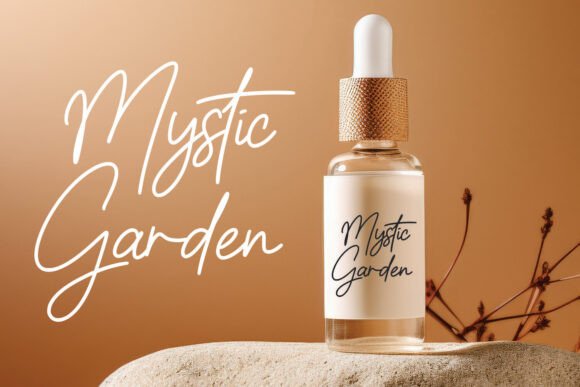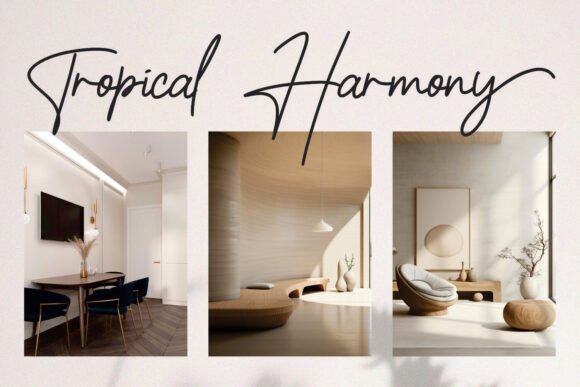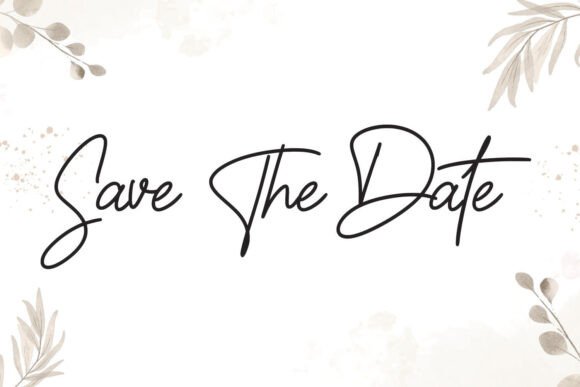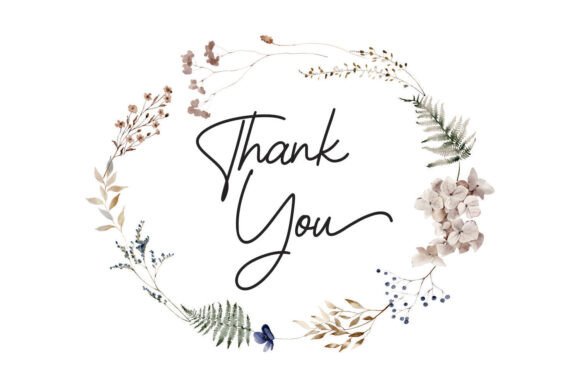
Introducing Beauty Signature Font: Elevate Your Visual Identity with Elegance
In the world of typography, a signature font can make all the difference in creating a lasting impression. For those seeking a touch of sophistication and warmth in their visual identity, the Beauty Signature Font is an exquisite choice. This beautiful, handwritten font is crafted in a signature script style, perfect for designers, crafters, and anyone looking to add a personal touch to their branding, logos, invitations, and greetings.
The Essence of Beauty Signature Font
Beauty Signature Font is a masterpiece of typographic artistry, boasting fluid strokes and a natural flow that mimics authentic hand lettering. Its elegant and graceful appearance strikes the perfect balance between sophistication and warmth, making it an ideal choice for those seeking to create a luxurious visual identity. Whether you’re a designer looking for a unique font for a client’s branding or a crafter seeking to add a personal touch to your products, Beauty Signature Font is sure to impress.
Key Features of Beauty Signature Font
- Elegant Handwritten Style: Beauty Signature Font features a beautiful, handwritten script style that’s perfect for creating sophisticated and eye-catching text.
- Fluid Strokes and Natural Flow: The font’s fluid strokes and natural flow give it an authentic, hand-lettered feel that’s sure to captivate your audience.
- Sophistication and Warmth: Beauty Signature Font perfectly balances sophistication and warmth, making it ideal for creating luxurious branding, personal logos, and heartfelt greetings.
- Versatile and Adaptable: This font is perfect for a wide range of applications, from branding and advertising to invitations, packaging, and more.
Perfect Uses for Beauty Signature Font
Beauty Signature Font is an incredibly versatile font that can be used in a variety of contexts. Here are some perfect uses for this stunning font:
- Luxurious Branding: Create a sophisticated and elegant brand identity with Beauty Signature Font, perfect for high-end businesses and luxury products.
- Personal Logos: Add a personal touch to your logo with Beauty Signature Font, ideal for creatives, entrepreneurs, and small business owners.
- Invitations and Greetings: Create beautiful, heartfelt invitations and greetings with Beauty Signature Font, perfect for weddings, birthdays, and special occasions.
- Stationery and Packaging: Elevate your stationery and packaging with Beauty Signature Font, adding a touch of elegance and sophistication to your correspondence and products.
Why Choose Beauty Signature Font?
With so many fonts available, why choose Beauty Signature Font? Here are just a few reasons why this font stands out:
- Unique and Distinctive: Beauty Signature Font is a one-of-a-kind font that’s sure to set you apart from the crowd.
- Elegant and Sophisticated: This font exudes elegance and sophistication, perfect for creating a luxurious visual identity.
- Easy to Read and Versatile: Beauty Signature Font is easy to read and versatile, making it perfect for a wide range of applications.
- High-Quality Design: This font is designed to the highest standards, ensuring a crisp and clear appearance in any context.
In conclusion, Beauty Signature Font is an exquisite choice for anyone seeking to elevate their visual identity with elegance and sophistication. With its fluid strokes, natural flow, and perfect balance of sophistication and warmth, this font is ideal for creating luxurious branding, personal logos, invitations, and heartfelt greetings. Whether you’re a designer, crafter, or simply someone looking for a unique font, Beauty Signature Font is sure to impress.